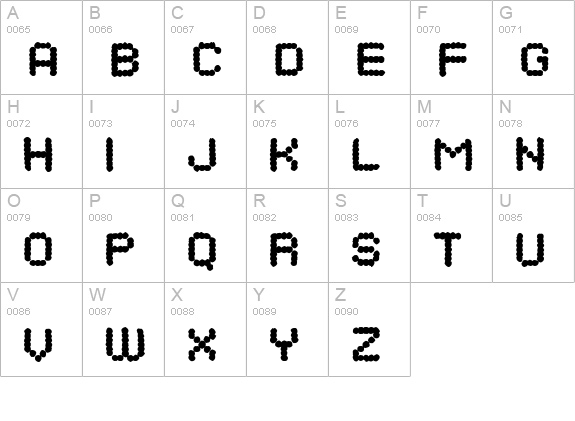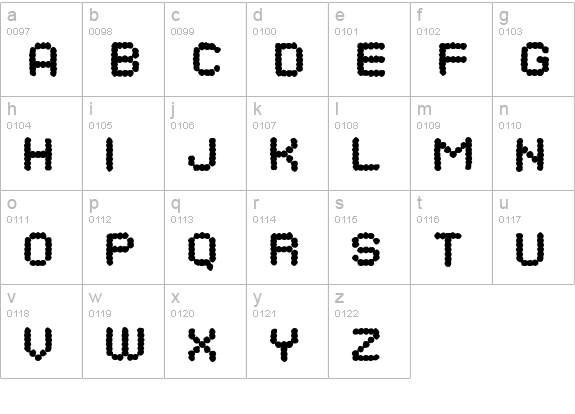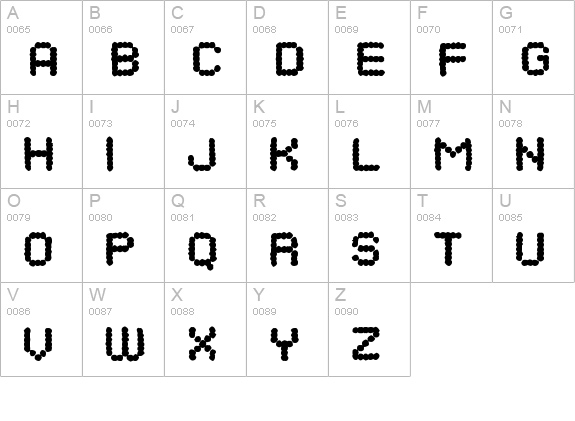
Dots All For Now Dirty JL Font Details
Dots All For Now Dirty JL font is a unique and artistic typeface that brings a touch of edginess to any design project. The irregular dots and distressed appearance give this font a gritty and urban vibe, perfect for adding a bit of character to your work. This font is versatile and can be used for a variety of projects, from posters to logos to social media graphics. Best of all, Dots All For Now Dirty JL font is completely free to download at FontsMarket.com. So you can add this cool and eye-catching font to your collection without breaking the bank. Don't miss out on the opportunity to enhance your designs with this free and stylish typeface!